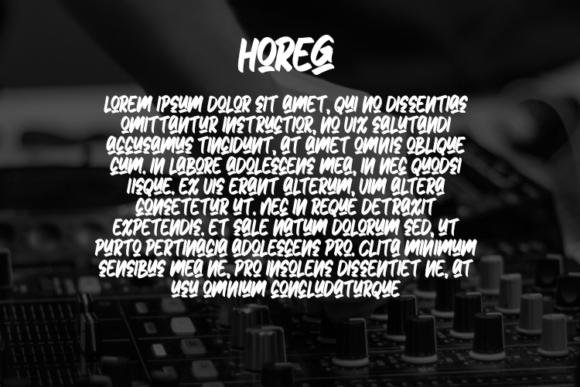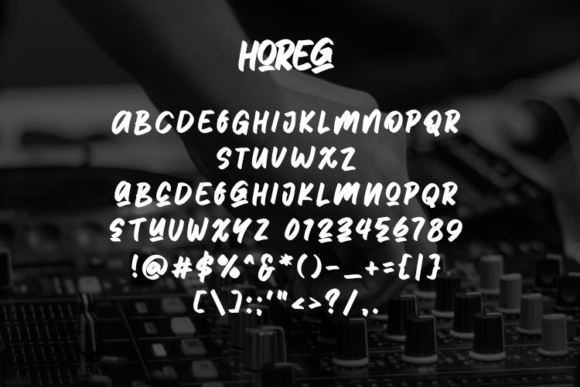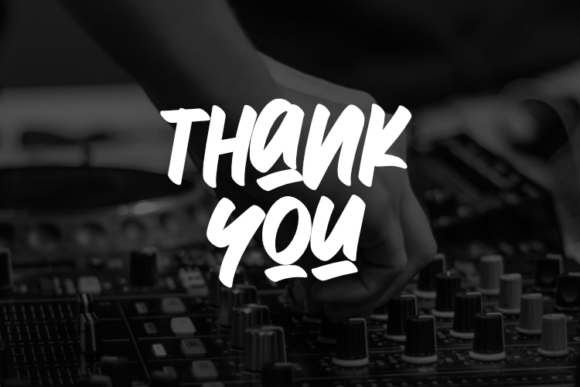
Introduction to Horeg Font
Have you ever been stuck in a creative rut, searching for the perfect design element to elevate your project? You’ve spent hours pouring your heart and soul into a graphic, only to feel like something’s missing. That’s where the Horeg Font comes in – a game-changing design resource that’s about to become your new go-to.
As a designer, you know the importance of having high-quality, versatile tools at your fingertips. The Horeg Font delivers just that, offering a seamless design experience that’s perfect for a wide range of creative projects, from clothing designs to whimsical t-shirt prints. With its smooth performance on any software, you’ll be able to focus on what matters most – bringing your vision to life.
Key Features of Horeg Font
- Features a transparent background, allowing for seamless integration into various design elements
- Includes a wide range of characters, including uppercase and lowercase letters, numbers, and symbols
- Supports resolutions up to 300 DPI, ensuring crisp and clear typography in high-resolution designs
- Designed with a modern and sleek aesthetic, perfect for use in logos, branding materials, and digital interfaces
- Comes in a single font size, making it easy to customize and scale to fit various design requirements
Honest Review: Horeg Font
I recently came across the Horeg Font and was excited to give it a try in my latest creative project. As a designer, I’m always on the lookout for high-quality, free download fonts that can elevate my designs. The Horeg Font did not disappoint.
- ✨ High-quality design: The Horeg Font has a beautiful, modern aesthetic that works well for a variety of design projects.
- ✨ Transparent background: The font is provided with a transparent background, making it easy to use in designs with complex backgrounds.
- ✨ Easy to customize: The font is highly customizable, allowing me to adjust the size, color, and style to fit my design needs.
While the Horeg Font is a great addition to any design resource, there are a few limitations to be aware of:
- ⚠️ Limited font weights: The Horeg Font only comes in a few font weights, which may limit its use in certain design projects.
- ⚠️ Not suitable for all projects: The font’s modern aesthetic may not be the best fit for more traditional or conservative design projects.
Overall, I’m impressed with the Horeg Font and would recommend it to designers looking for a high-quality, free download font for their creative projects. With a little creativity and customization, the Horeg Font can add a unique touch to any design.
Tips for Getting the Most Out of Horeg Font
When using Horeg Font, keep in mind that it has a transparent background, making it ideal for use on images and graphics with complex backgrounds. You can also experiment with different font sizes and styles to create a unique and eye-catching design.
The Horeg Font is perfect for a variety of creative projects, including logos, business cards, and social media graphics. Its high-quality design makes it an excellent choice for any project that requires a professional and stylish touch.